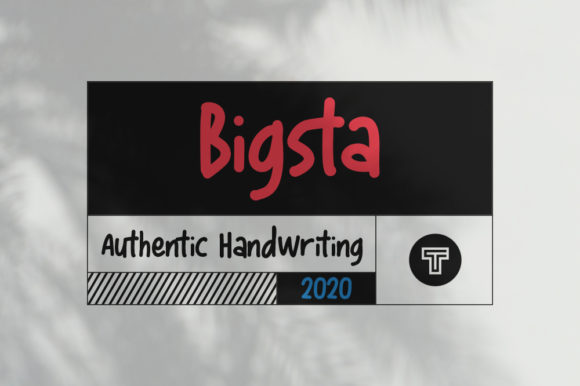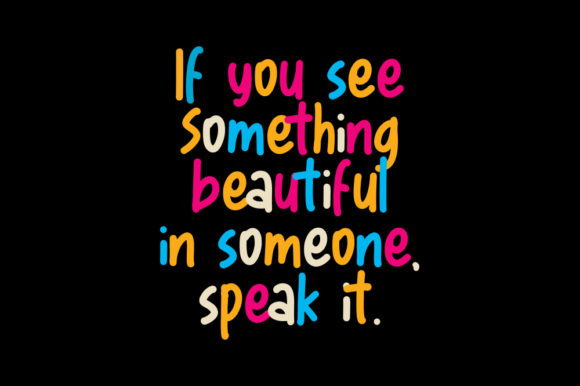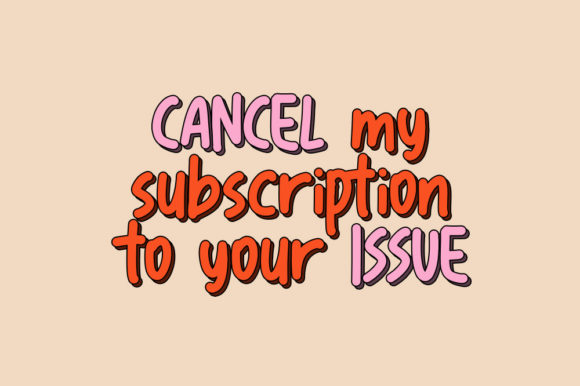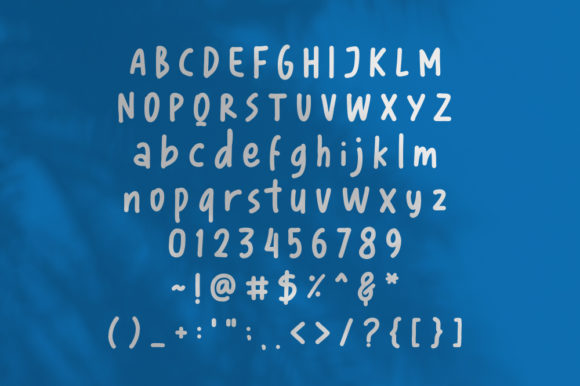
Bigsta Font
About Bigsta Font
Bigsta is a casual and modern handwritten font. This font will look outstanding in any context, whether it’s being used on busy backgrounds or as a standalone headline!